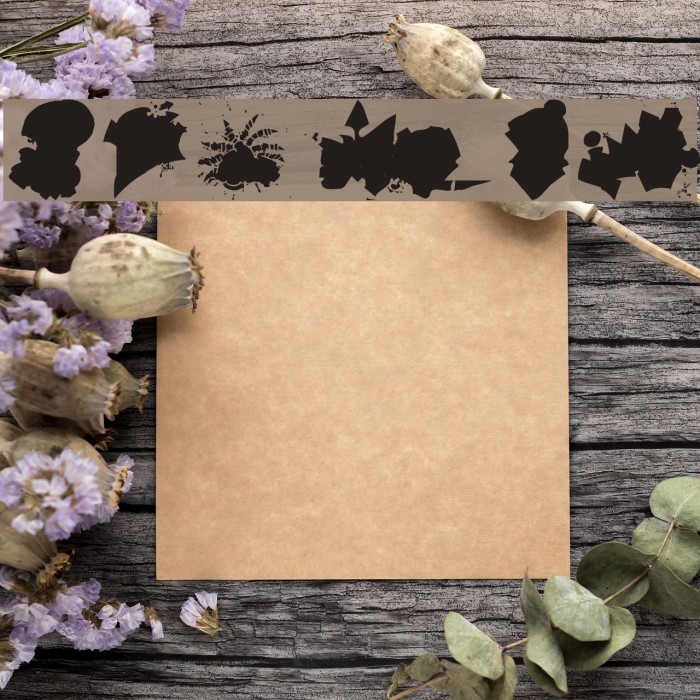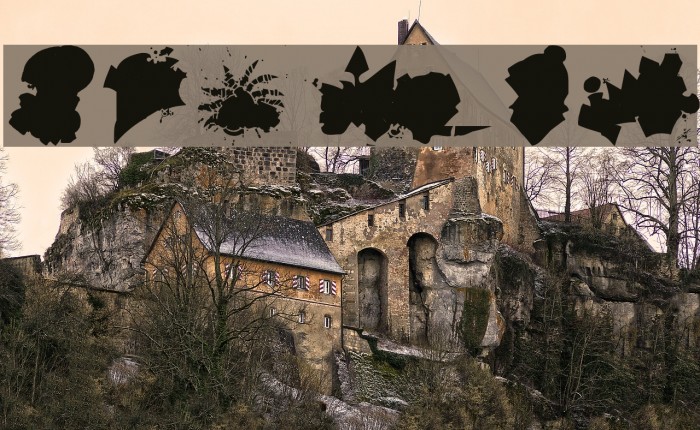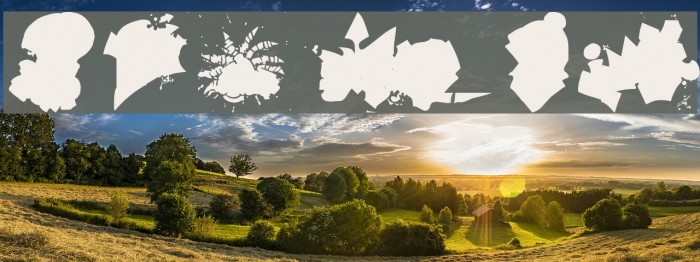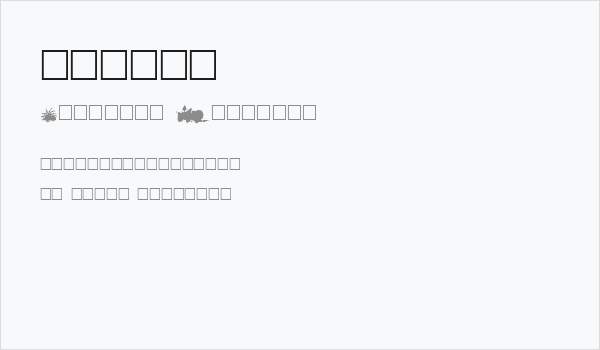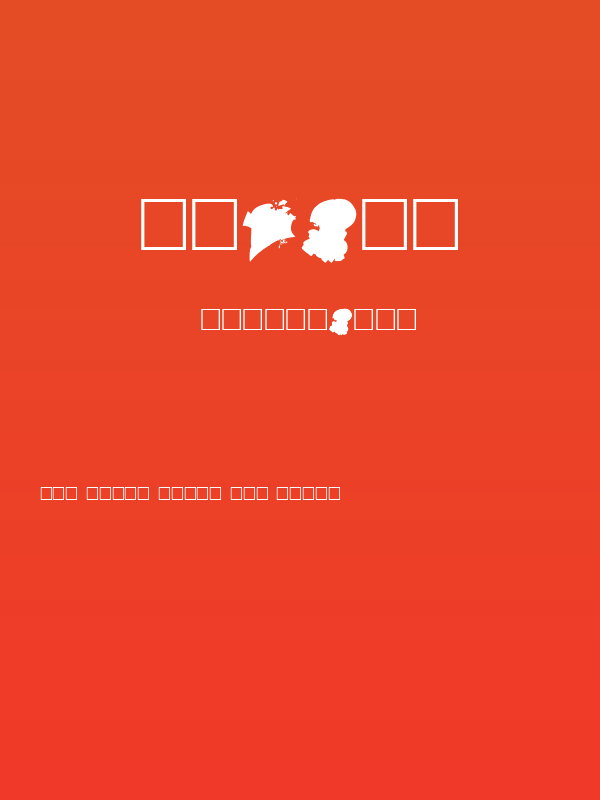
Jobats Font
Jobats Description
This font is characterized by its bold, abstract, and highly decorative style, resembling ink splatters or silhouettes of bats. The design is unconventional, with each character appearing as a unique, artistic shape rather than a traditional letterform. This gives the font a chaotic and dynamic appearance, making it stand out as a statement piece. The characters are filled with solid black, creating a strong visual impact. The font lacks uniformity, with varying shapes and sizes, contributing to its artistic and avant-garde nature.
| Use Case | Logos, Posters, Artistic projects |
| Proposed Projects | Ideal for Halloween-themed designs, horror movie posters, or any project requiring a dramatic and artistic flair. |